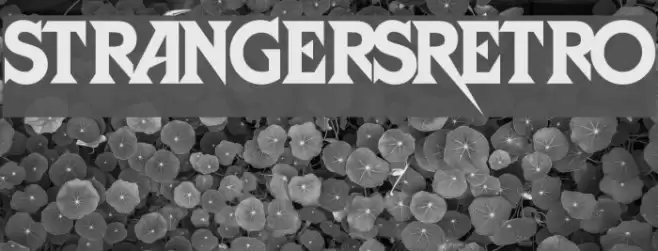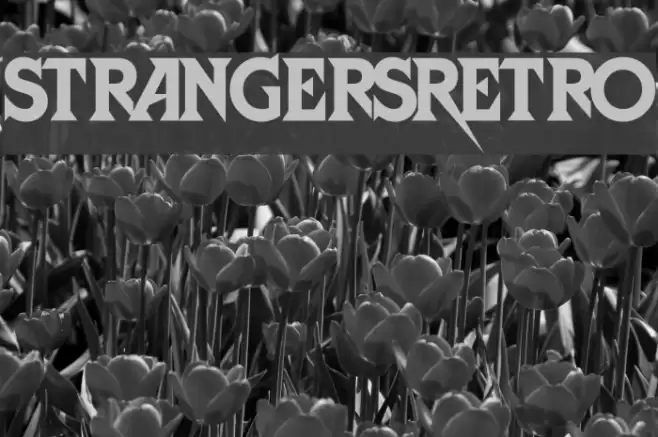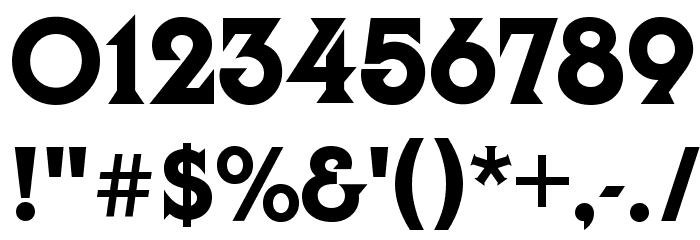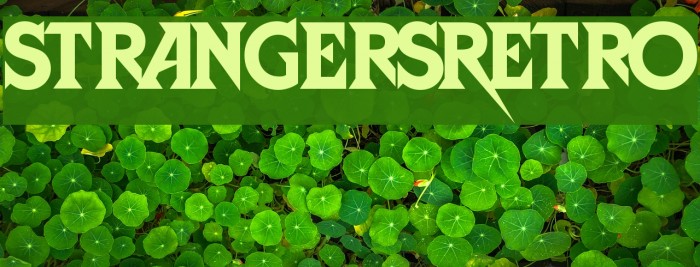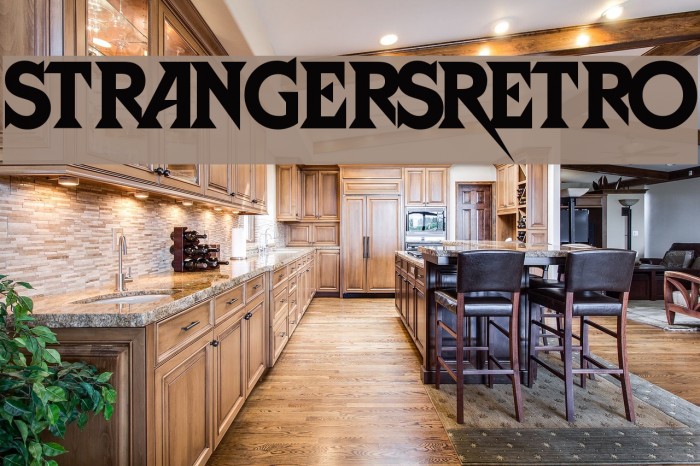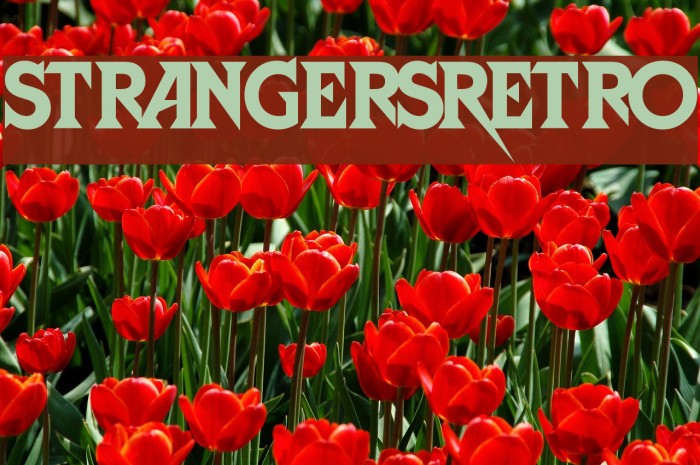
StrangersRetro Font
StrangersRetro Description
This font features a bold and striking design with sharp, angular edges and a retro aesthetic. The uppercase letters are particularly distinctive, with exaggerated serifs and a dynamic, almost electric feel. The lowercase letters maintain this boldness, ensuring consistency across the typeface. Numbers and special characters are equally bold, making them stand out. The overall style is reminiscent of vintage rock band logos or retro movie posters, making it ideal for projects that require a strong visual impact.
A bold, retro font with sharp, angular edges and a dynamic style from Uncategorized fonts.
- Proposed Projects: Ideal for music album covers, retro-themed posters, branding for edgy products, and any design needing a bold, vintage touch.
- Overall Style: Vintage